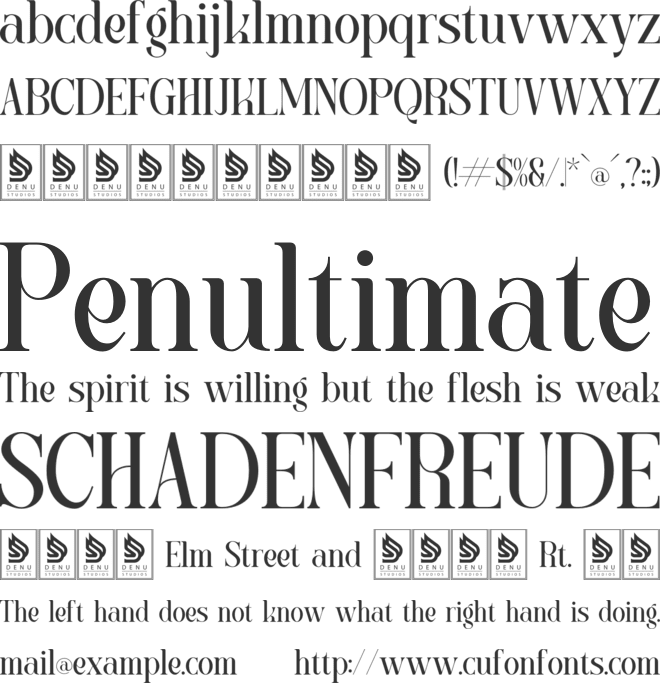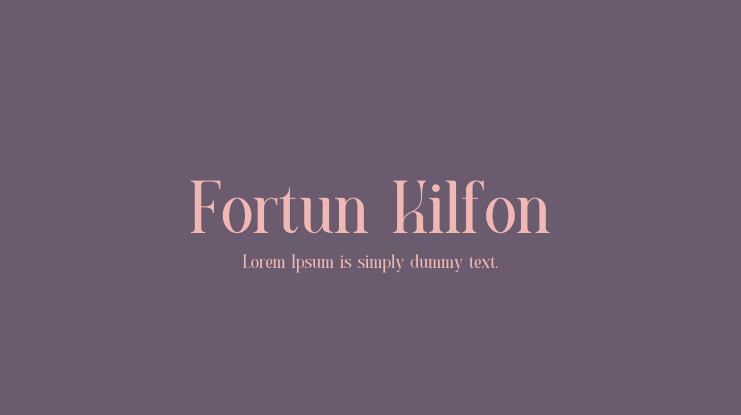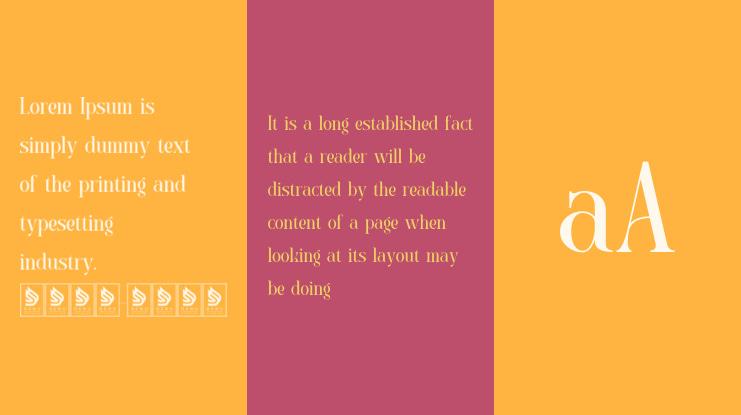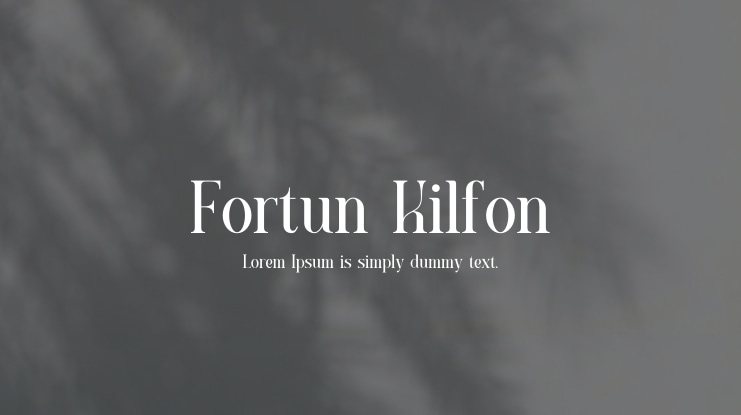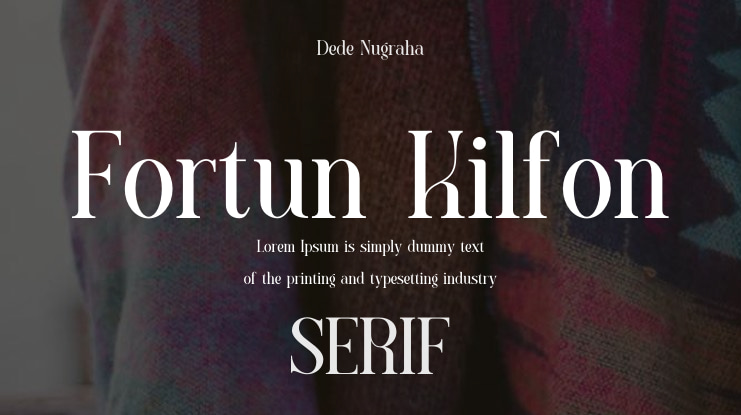
Fortun Kilfon | Modern Elegant Serif is perfect for various projects such as logos, branding, homeware designs, product packaging, mugs, quotes, posters, shopping bags, t-shirts, book covers, name cards, invitation cards, greeting cards, labels, photography, watermarks, special events, and any other projects that require a Modern Elegant Serif touch.